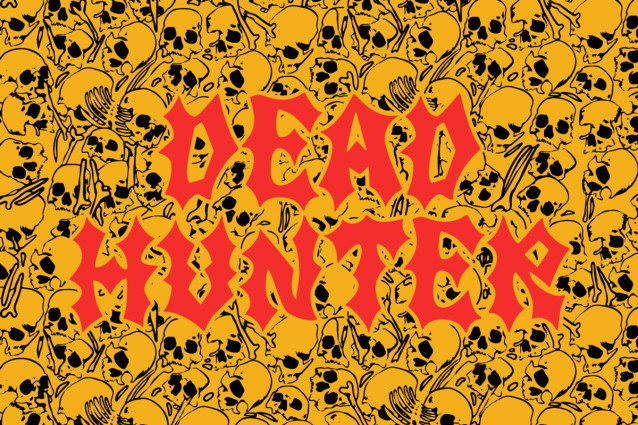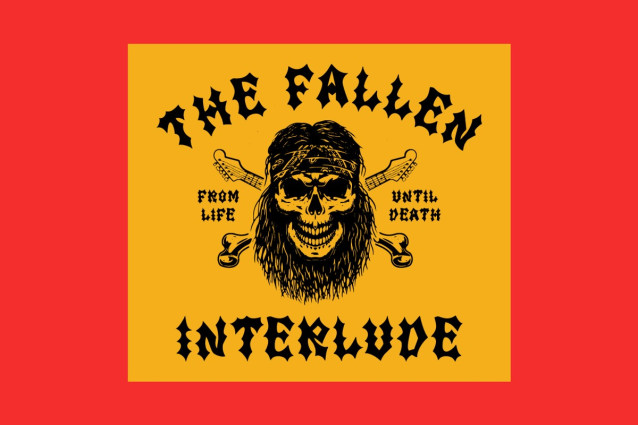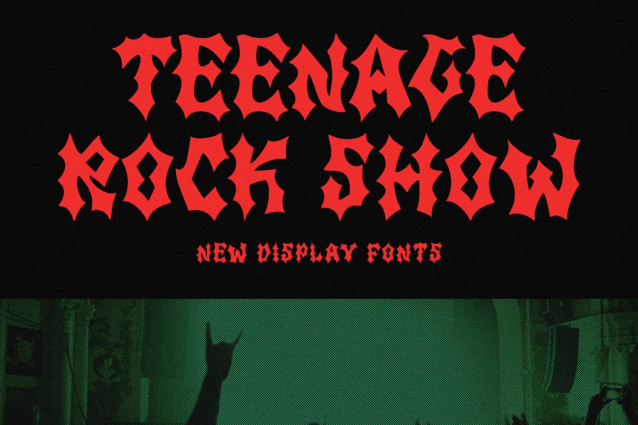
Teenage Rock Show Font
Teenage Rock Show Font – a striking and impactful display font that embodies a sense of strength and edginess. This handcrafted font features pointed letterforms with a bold weight, capturing a unique and distinct style that is reminiscent of metallic textures.
Rarbold is designed to make a bold statement, commanding attention with its sharp and angular aesthetics. Its sleek and sharp lines lend a touch of modernity, while the bold weight adds a sense of power and solidity. Whether used for headlines, logos, or graphic elements, this font is sure to leave a lasting impression.